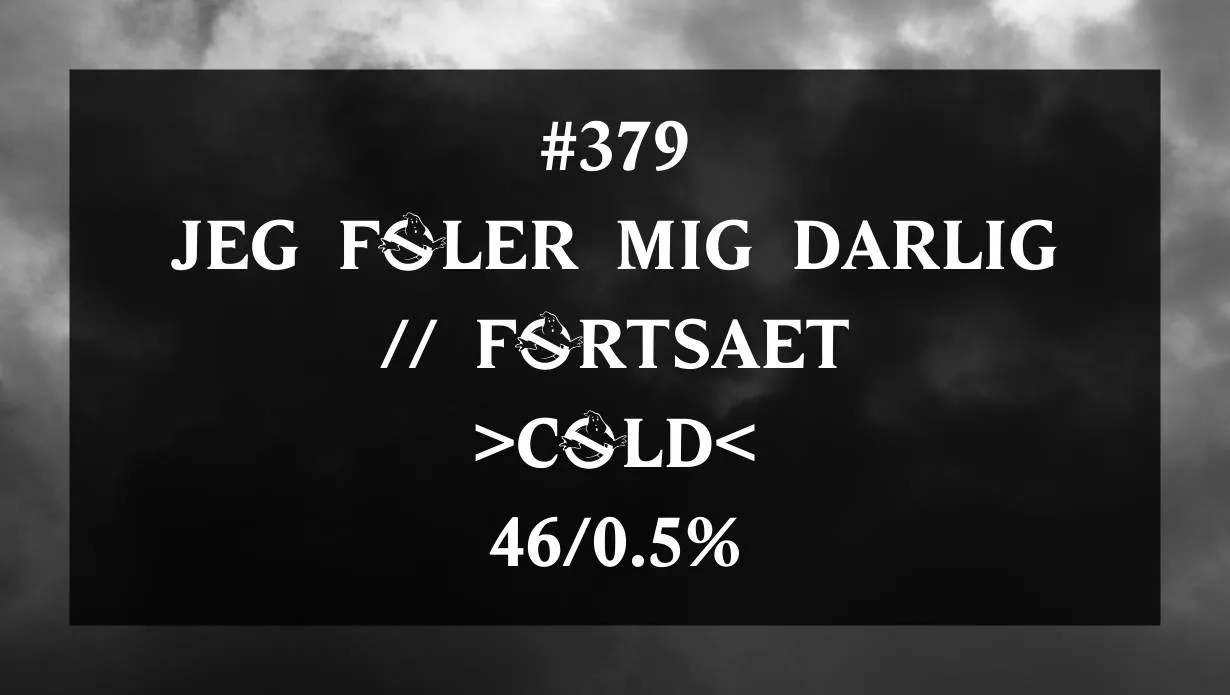
Ghostbusters font is based on a famous American movie ghostbusters. This movie was released in 1984. This typeface is used in the logo of this movie. Ghostbusters typeface is designed by Kevin Wilson for the foundry The Flea Pit.
Ghostbusters font is similar to the Rakkas Font. This font is the best choice for creating logos, headings, and posters. This typeface is also available on the dafont website with the same name. You can say that it is dafont font.